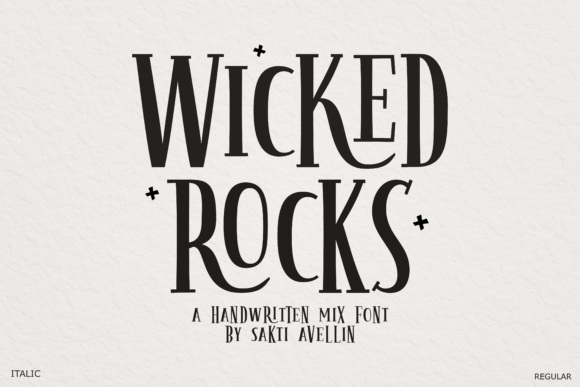
Wicked Rocks Font: A Magical Hand-Crafted Font to Elevate Your Designs
In the world of typography, a good font can make all the difference in bringing a design to life. If you’re looking for a font that adds a touch of magic to your creations, look no further than Wicked Rocks Font. This hand-crafted font is designed to infuse vitality into any design, making it a perfect choice for creatives, designers, and marketers alike.
What Makes Wicked Rocks Font So Special?
Wicked Rocks Font is a charming and versatile font that offers a unique blend of creativity and functionality. Here are some of its key features:
- Hand-crafted with love: Wicked Rocks Font is carefully crafted by hand, giving it a unique and personal touch that sets it apart from other fonts.
- Magical blend of uppercase and lowercase letters: The font’s design combines uppercase and lowercase letters in a way that creates a captivating typographical experience.
- Ligature feature: The font includes a carefully designed ligature feature that allows for smooth and elegant connections between letters.
- PUA-encoded for easy access: Wicked Rocks Font is PUA-encoded, making it easy to access all glyphs, swashes, and alternate characters.
Endless Design Possibilities with Wicked Rocks Font
Wicked Rocks Font is an incredibly versatile font that can be used in a wide range of design applications. Here are some ideas to get you started:
- Captivating quotes: Use Wicked Rocks Font to create inspiring and thought-provoking quotes that grab attention.
- Snappy t-shirts: Design eye-catching t-shirts with Wicked Rocks Font that are sure to turn heads.
- Unique key chains: Add a personal touch to key chains with custom designs created using Wicked Rocks Font.
- Compelling invitation cards: Create beautiful and elegant invitation cards for special occasions using Wicked Rocks Font.
- Heartwarming greeting cards: Design personalized greeting cards that convey your message with style and charm.
- Vibrant posters: Use Wicked Rocks Font to create stunning posters that capture attention and convey your message.
- Stylish tote bags: Design fashionable tote bags with Wicked Rocks Font that make a statement.
- Personalized mugs: Create customized mugs with Wicked Rocks Font that make a thoughtful gift or personal keepsake.
Tips for Using Wicked Rocks Font Effectively
To get the most out of Wicked Rocks Font, here are some typography tips to keep in mind:
- Experiment with font sizes: Wicked Rocks Font looks great in a variety of font sizes, so don’t be afraid to experiment and find the perfect size for your design.
- Play with color: The font’s design looks great in a range of colors, so try out different colors to find the one that works best for your design.
- Mix and match: Combine Wicked Rocks Font with other fonts to create a unique and visually appealing typography style.
- Pay attention to spacing: Make sure to adjust the spacing between letters and lines to create a clean and elegant design.
The Benefits of Using Wicked Rocks Font
Wicked Rocks Font offers a range of benefits that make it an excellent choice for designers and creatives. Here are some of the advantages of using this font:
- Unique and eye-catching: Wicked Rocks Font is a one-of-a-kind font that adds a touch of magic to any design.
- Versatile: The font can be used in a wide range of design applications, from quotes and t-shirts to posters and mugs.
- Easy to use: Wicked Rocks Font is PUA-encoded, making it easy to access all glyphs, swashes, and alternate characters.
- High-quality design: The font is carefully crafted by hand, ensuring a high-quality design that looks great in any application.
In conclusion, Wicked Rocks Font is a magical hand-crafted font that can elevate any design to the next level. With its unique blend of uppercase and lowercase letters, ligature feature, and PUA-encoded design, this font offers endless possibilities for creatives and designers. Whether you’re looking to create captivating quotes, snappy t-shirts, or stylish tote bags, Wicked Rocks Font is the perfect choice. So why wait? Unleash your creativity with Wicked Rocks Font and add a dash of magic to every creation.